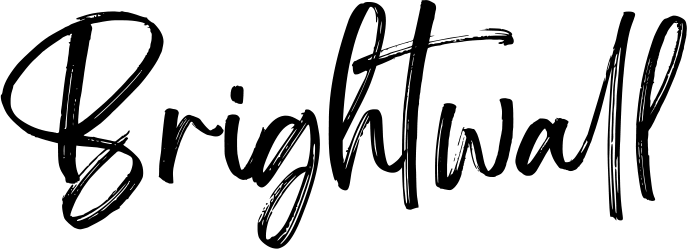
Brightwall Font
Brightwall conveys a sense of being artistic, cozy, and friendly to others, and in this case, Brightwall is a very powerful font. Brightwall is a script font that does not support numbers and doesn’t have high readability. In addition, you can use Brightwall in artwork such as designing posters, logos, and product packaging.
Introducing Brightwall Brush Font. Made with naturally brush. The texture from the brush font will make
your design more beautiful and powerful. This font is suitable for any design like branding, quotes, t-shirt
printing and etc.